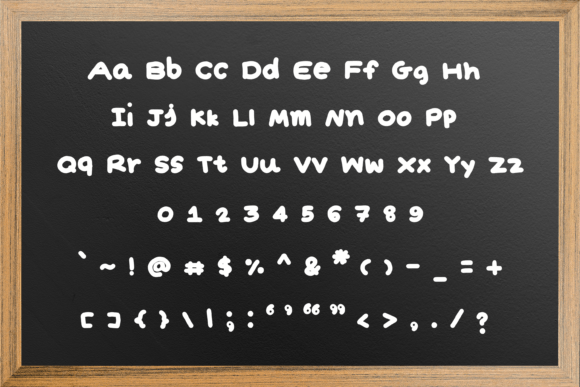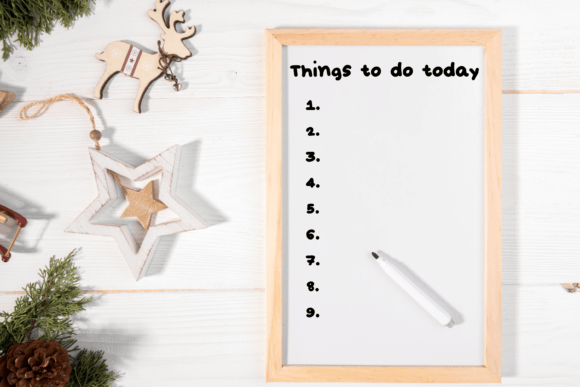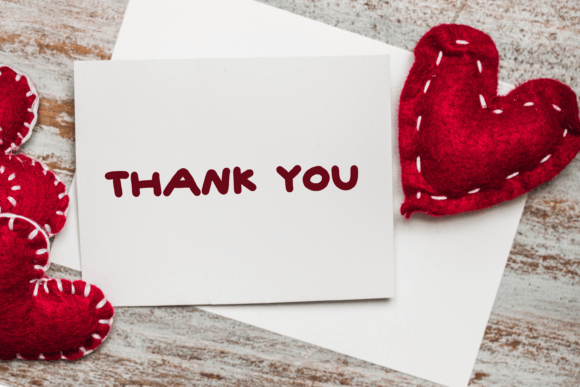
The Cutey Eng Font: A Fresh and Quirky Addition to Your Design Arsenal
I’ll never forget the time I was working on a project for a client’s children’s book. I had spent hours pouring over design concepts, but something was missing. The font I had chosen just wasn’t doing justice to the playful and imaginative story. That’s when I stumbled upon the Cutey Eng Font. Its fresh and quirky appearance instantly captured the tone I was going for, and I knew I had found the perfect fit.
What is Cutey Eng Font?
The Cutey Eng Font is a handwritten font that features clear and distinct lines, with a fresh and quirky appearance. It also incorporates a touch of cuteness and charm that adds to its overall appeal. This font is perfect for designers, crafters, and creative hobbyists looking to add a personal touch to their projects.
- ✨ Clear and distinct lines that make it easy to read
- ✅ Fresh and quirky appearance that’s perfect for creative projects
- 💕 Touch of cuteness and charm that adds to its overall appeal
- 🎉 Highly versatile and can be used for a variety of projects, from children’s books to social media graphics
- 🤔 Limited availability of certain characters and glyphs
- ⚠️ May not be suitable for very formal or professional projects
The Cutey Eng Font was designed by a talented font designer who wanted to create a font that was both fun and functional. The designer was inspired by the world of children’s books and toys, and wanted to create a font that captured the same sense of playfulness and imagination. The result is a font that’s both cute and charming, with a fresh and quirky appearance that’s perfect for creative projects.
Q: What is the Cutey Eng Font?
A: The Cutey Eng Font is a handwritten font that features clear and distinct lines, with a fresh and quirky appearance.